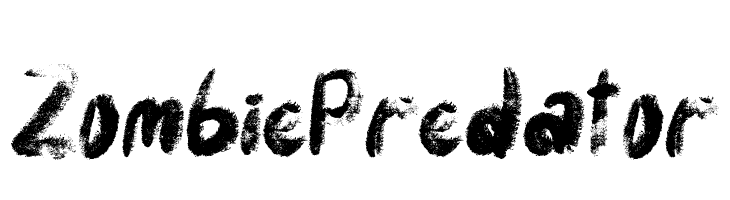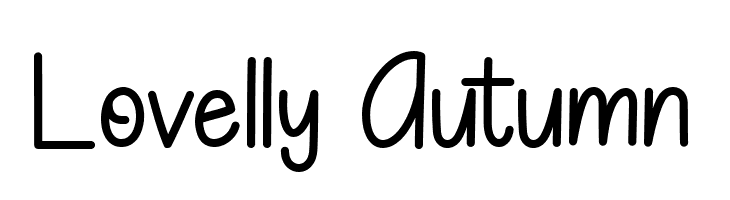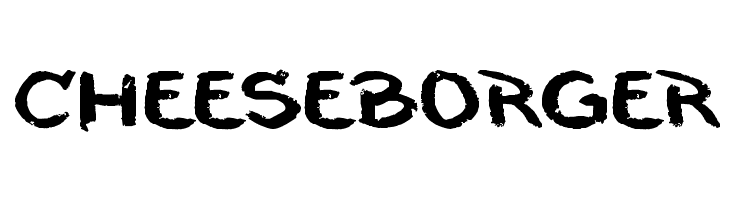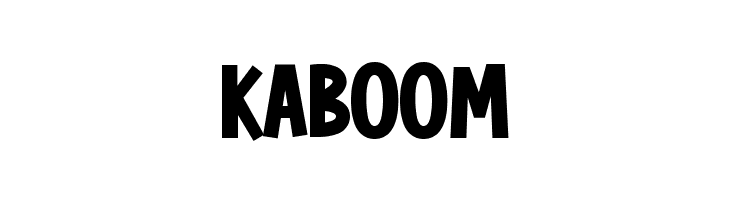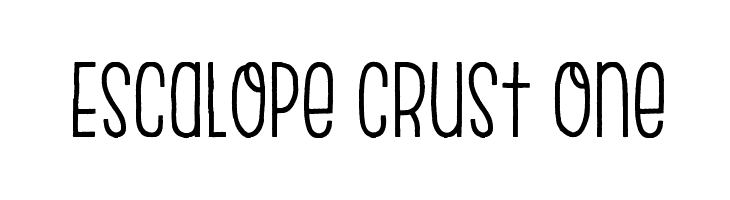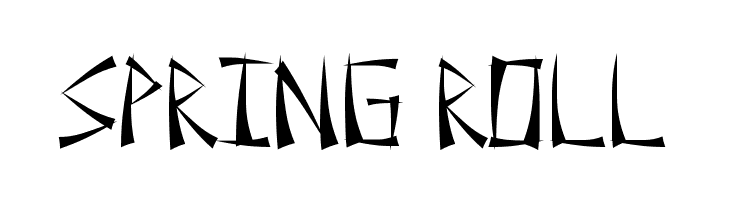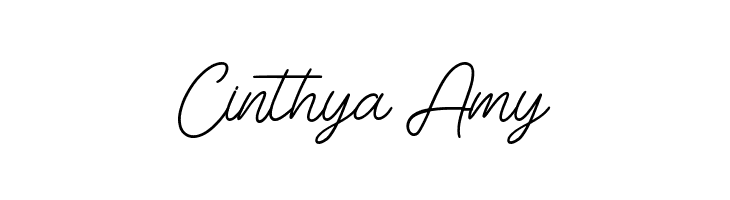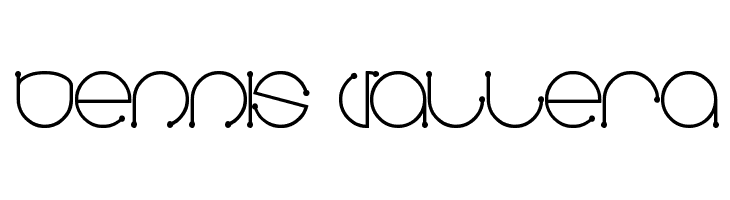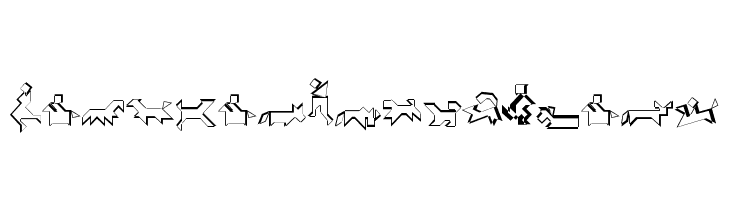
A bold, textured brush font with a rugged, graffiti-like appearance.
A vintage, distressed font with bold, angular serifs and a cohesive, weathered texture.
A playful, handwritten font with rounded, irregular characters.
A decorative, geometric font with a double-line structure for bold visual impact.
A modern, narrow font with vintage flair and consistent stroke width.
A bold, italicized font with a dynamic and energetic style.
A bold, hand-painted style font with textured, expressive characters.
A bold, decorative font with thick strokes and a playful style.
A playful, narrow, and monoline font with a hand-drawn feel.
A bold, edgy font with sharp angles and a rebellious style.